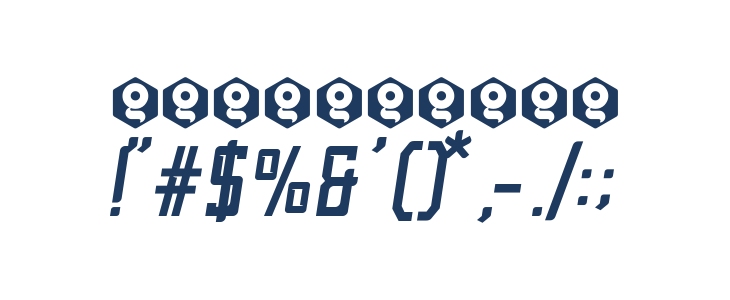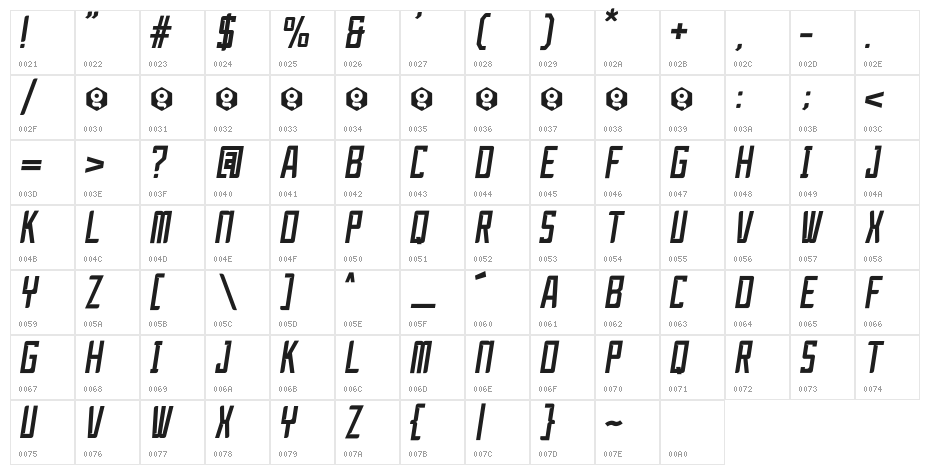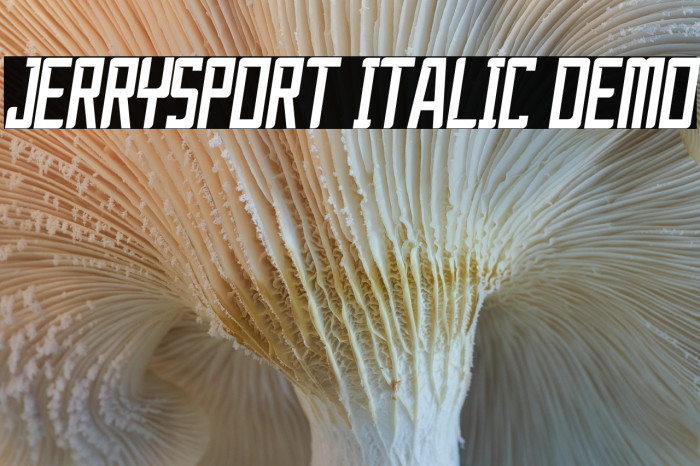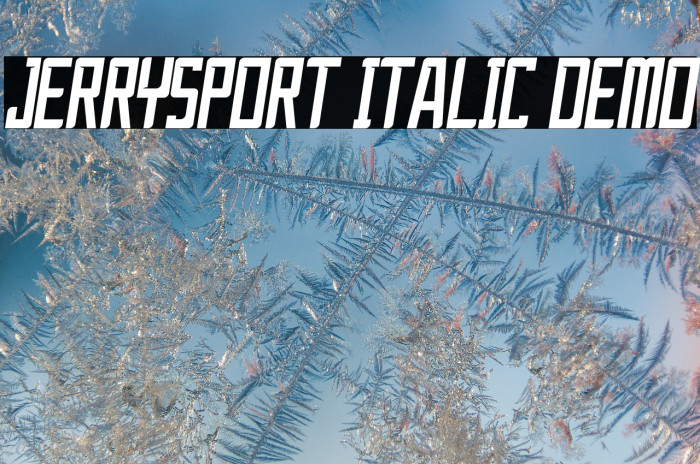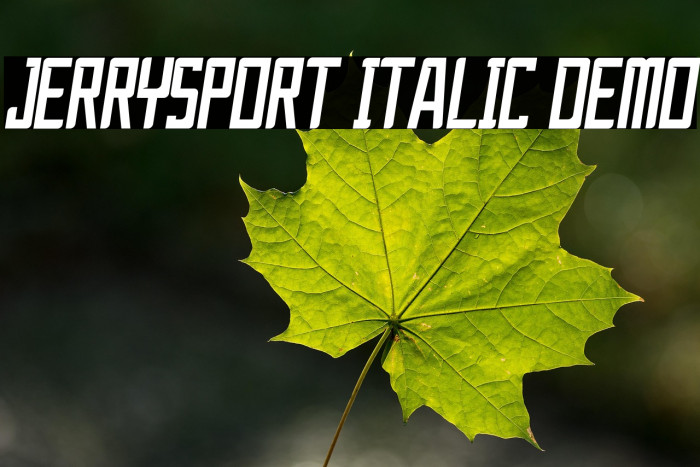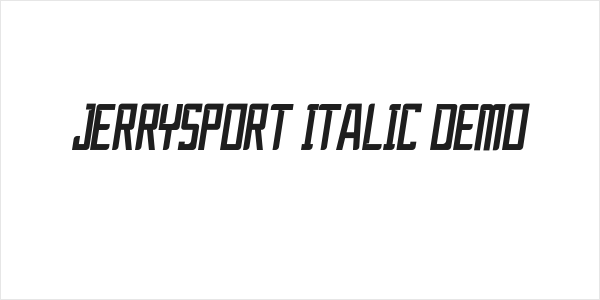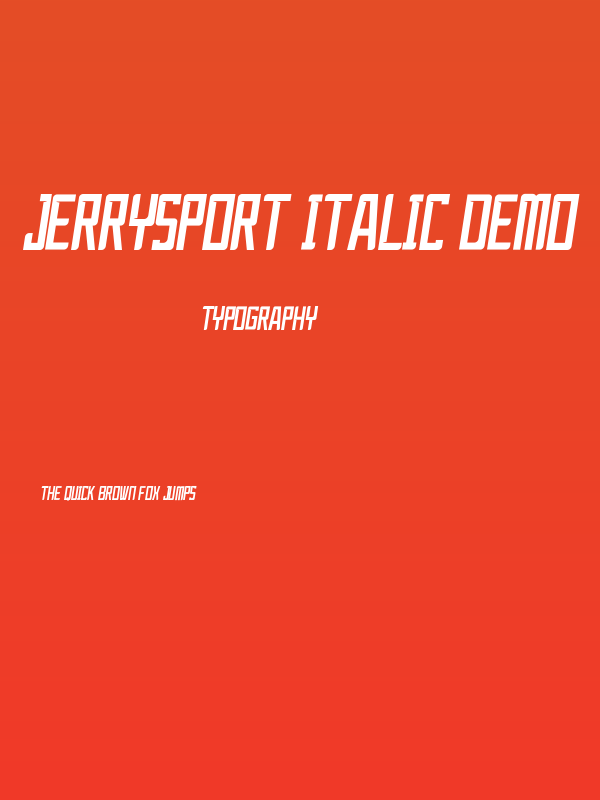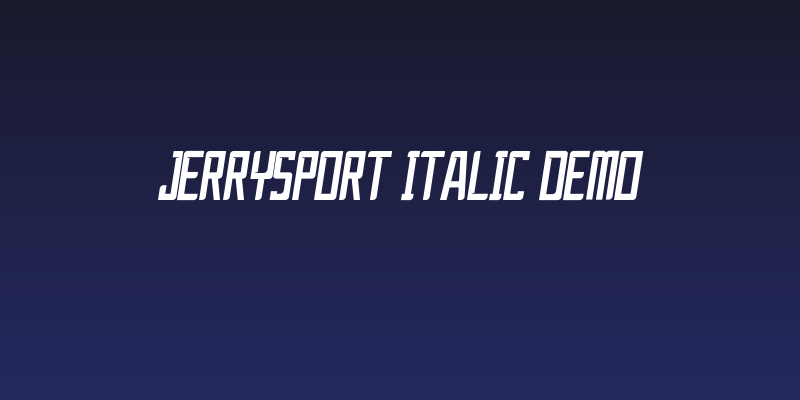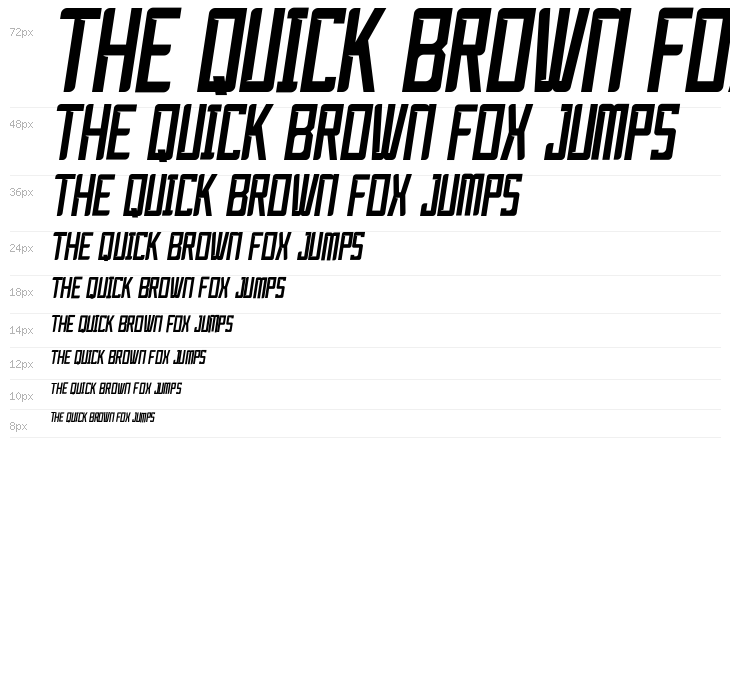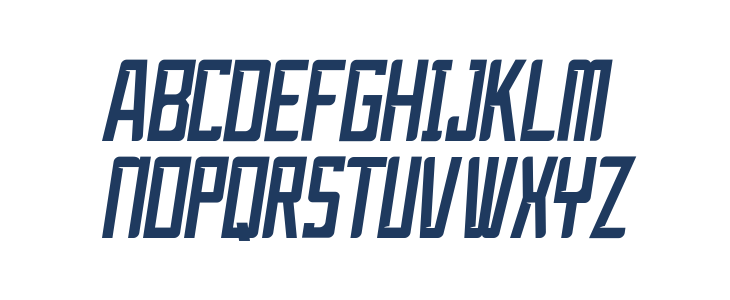
JerrySport Italic Demo Font
JerrySport Italic Demo Description
This font features a dynamic and sporty design with an italicized slant, giving it a sense of motion and energy. The characters are bold and angular, with a slightly condensed width that enhances its modern and athletic appearance. The uppercase and lowercase letters maintain a consistent style, with sharp edges and a uniform stroke width that adds to its boldness. The numerals are uniquely styled with a hexagonal background, adding a distinctive touch. Special characters are included, maintaining the overall geometric and edgy aesthetic.